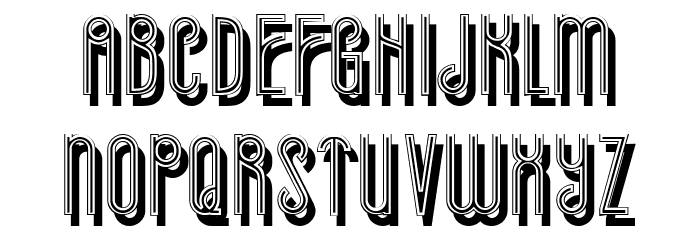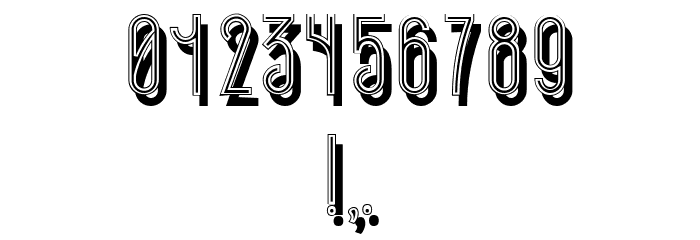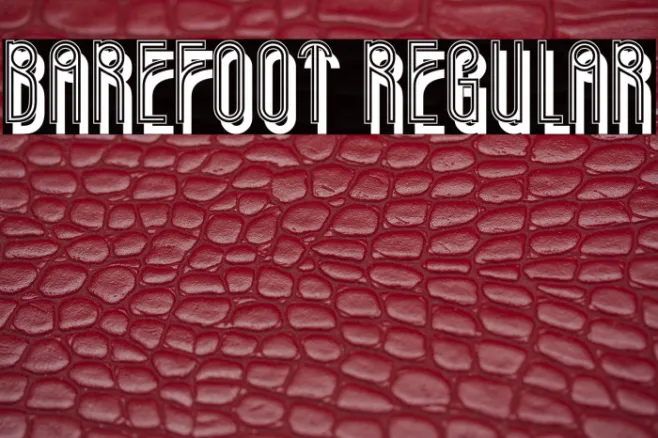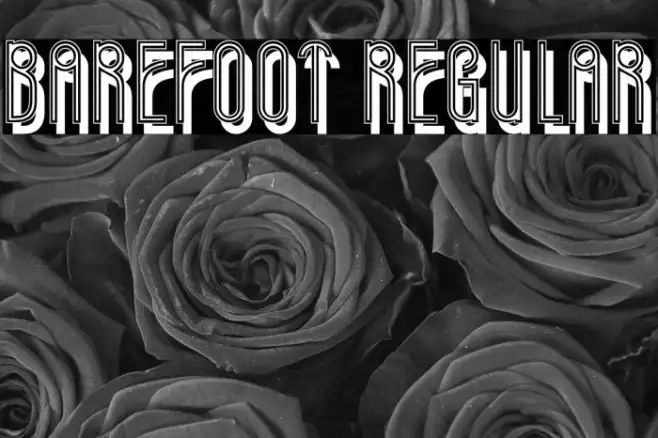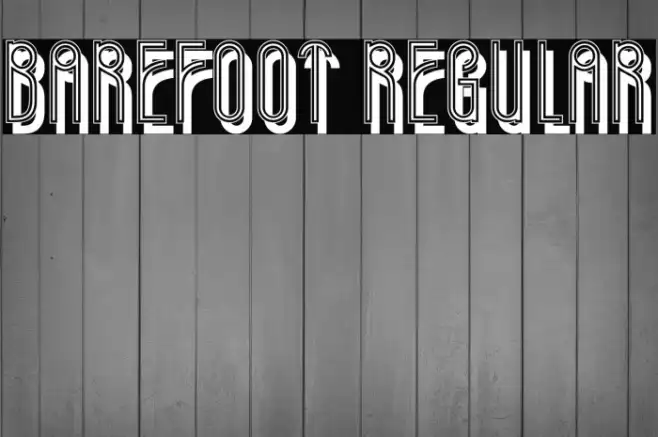
Barefoot Regular Font
This font features a bold and decorative style with a three-dimensional effect, achieved through the use of shadowing and layered outlines. The characters are tall and narrow, giving them a condensed appearance. The uppercase and lowercase letters maintain a consistent design, with unique curves and angles that add a sense of movement and flair. The numbers and special characters follow the same stylistic approach, ensuring uniformity across all glyphs. This font's distinct look makes it ideal for eye-catching designs.
A bold, decorative font with a three-dimensional effect and condensed style.
- Font: Barefoot Regular
- Proposed Projects: Ideal for poster designs, branding projects, and any creative work that requires a standout, artistic typeface.